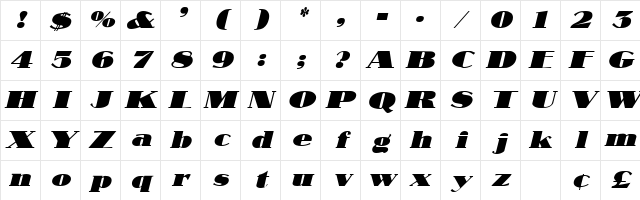
Complete Sabotage Oblique glyph index. Displaying only characters natively supported by Sabotage Oblique font.
Sabotage is a composed and adaptable typeface that performs quietly and consistently across a wide range of design contexts. The slanted form adds forward momentum and visual energy.